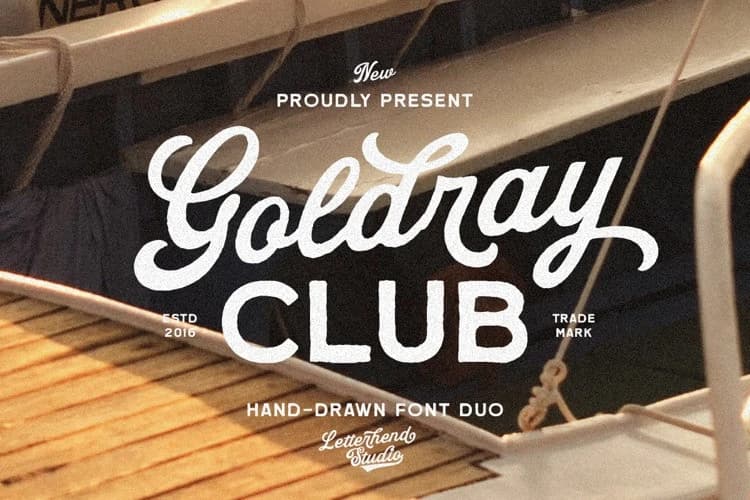
Goldray Club Font Duo
Goldray Club Font Duo rolls in smooth and sunny, blending a laid-back script with a clean sans, bringing that hand-drawn warmth while the sans keeps everything neat and easy to read—like a perfect duo that just clicks.